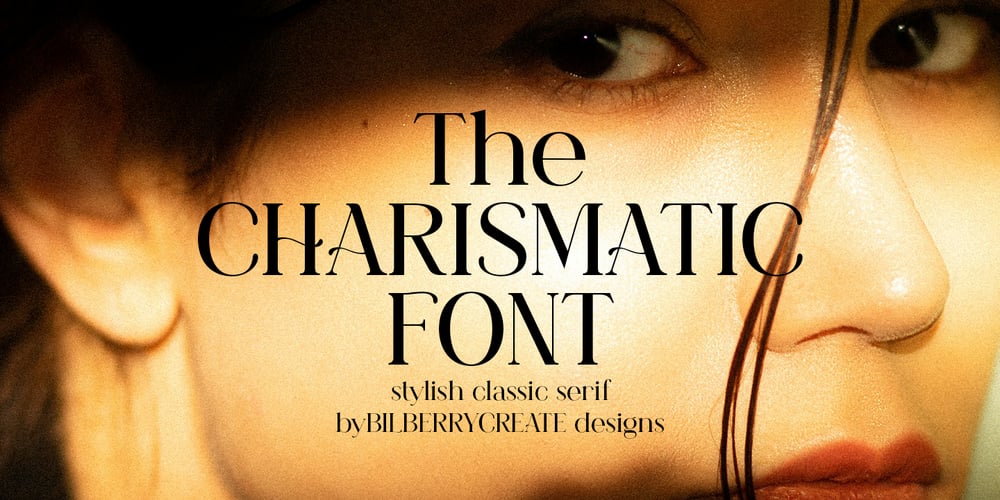
Charismatic Font Family was designed by Daria Cherniackova and published by Bilberry Create. Charismatic contains 1 styles and family package options. The Charismatic serif font – Stylish classic serif font!This is a perfect for any project. Be sure to click on the image to see all elements. This product was created to help you make your digital images even more beautiful and unique.This pack can be used to create anything as you wish, logos invitation cards, make scrapbooking, wedding cards, birthday cards, home decor, packaging holiday gifts, party decorations, print on fabrics and so much more.What’s in the package: The Charismatic serif font